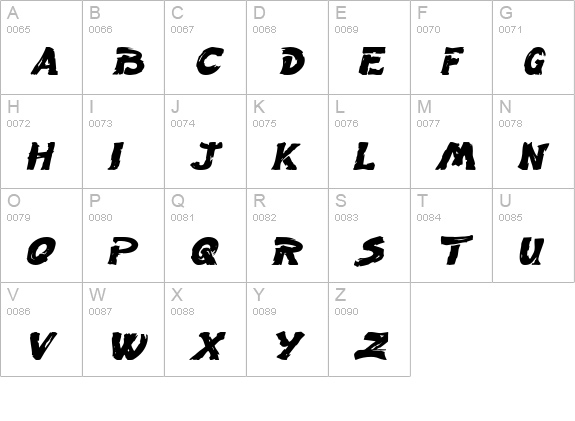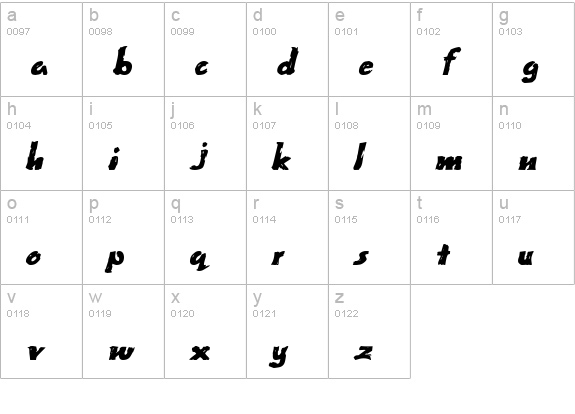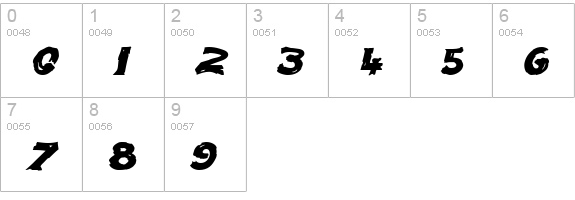
PaintExtended Italic Font Details
PaintExtended Italic is a distinctive, italic variant in the PaintExtended typeface family \xE2\x80\x94 well suited to design and typography projects.
PaintExtended Italic is a visually captivating and creatively versatile font that adds a touch of whimsy and artistic flair to any design project. Its unique and intricate letterforms are gracefully slanted, creating an elegant and playful appearance. This font is perfect for adding a creative twist to headlines, logos, invitations, posters, and so much more. With its elongated and slightly exaggerated strokes, PaintExtended Italic captures the essence of hand-painted brush strokes, giving your designs a handcrafted and artistic feel. Its italicized style adds a sense of movement and dynamism, making it an ideal choice for designs that aim to evoke a sense of energy and excitement. This font is freely available to download at FontsMarket.com, offering you the opportunity to enhance your design arsenal without breaking the bank. Whether you're a professional designer or an enthusiastic hobbyist, PaintExtended Italic provides you with a versatile and eye-catching option that will set your designs apart from the rest. Don't miss out on the chance to elevate your creative projects with the captivating and freely available PaintExtended Italic font. Download it today at FontsMarket.com and unlock a world of design possibilities.